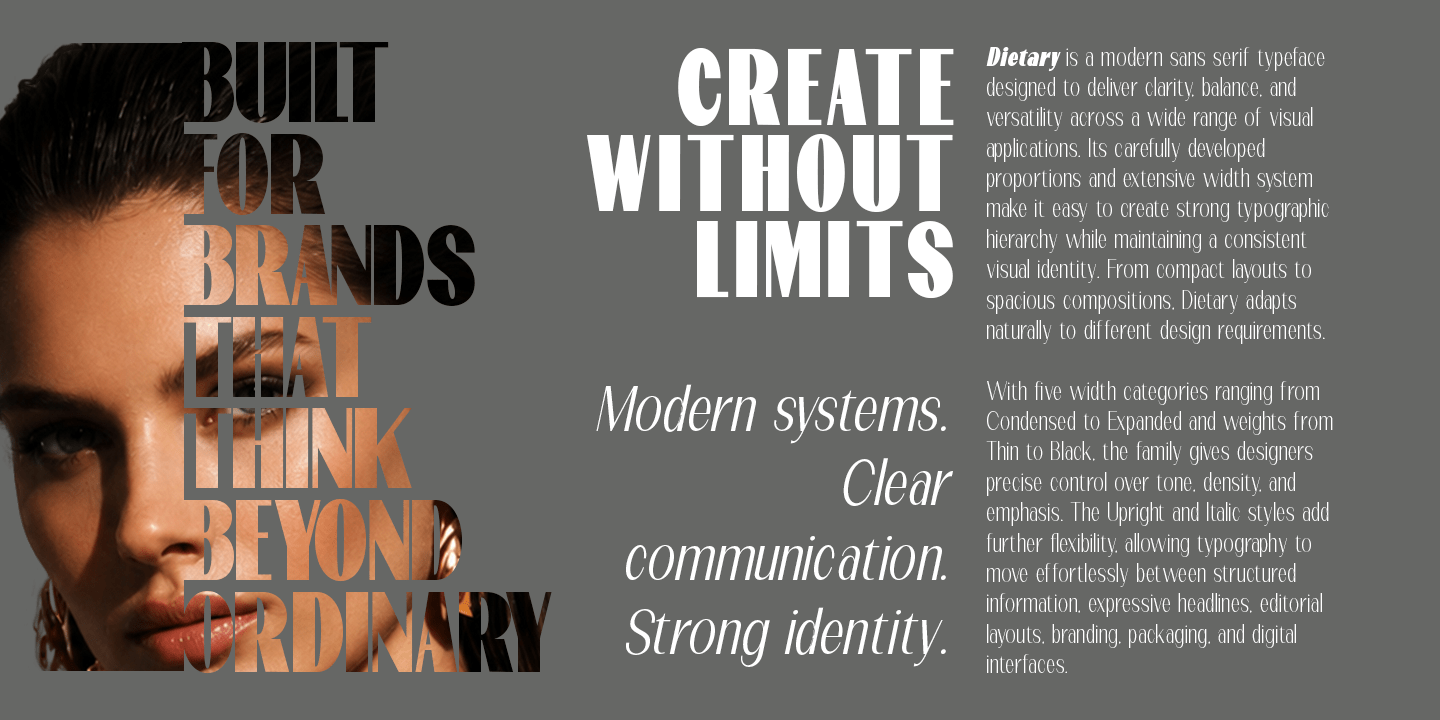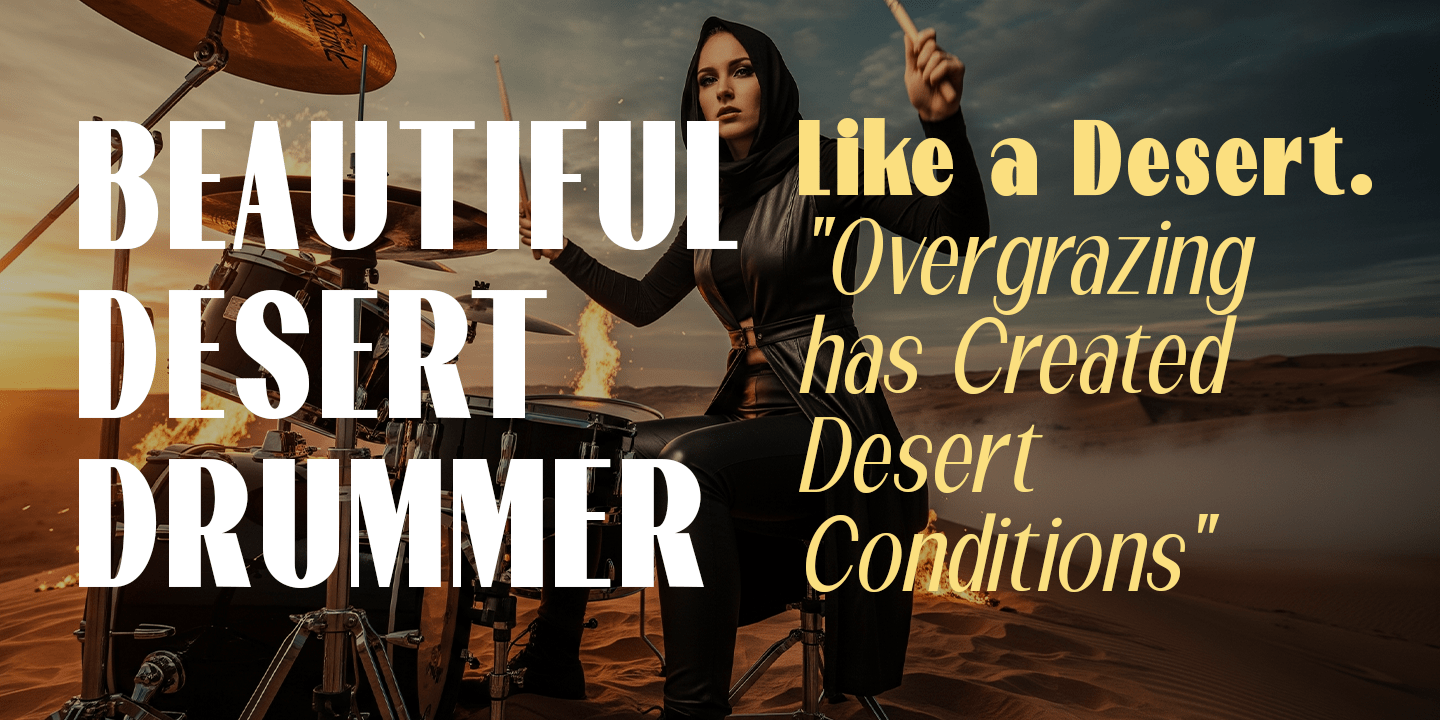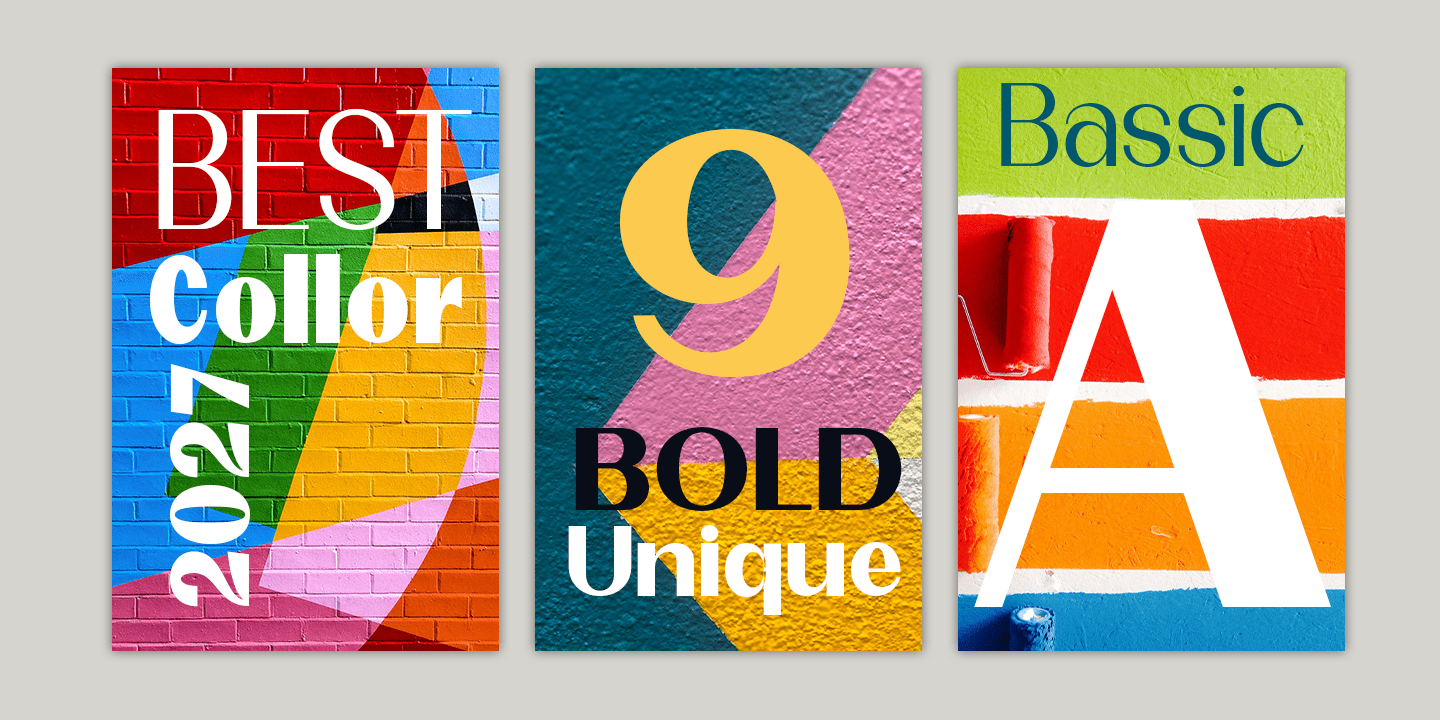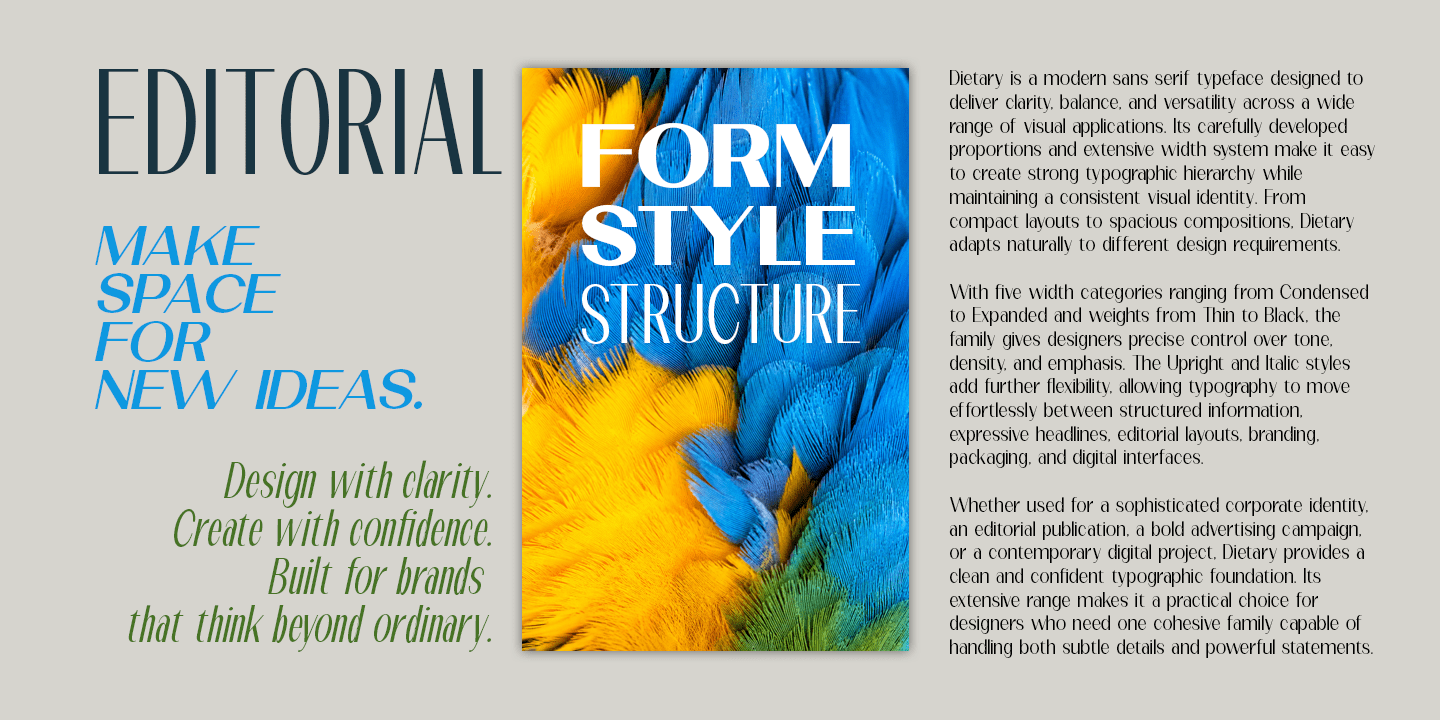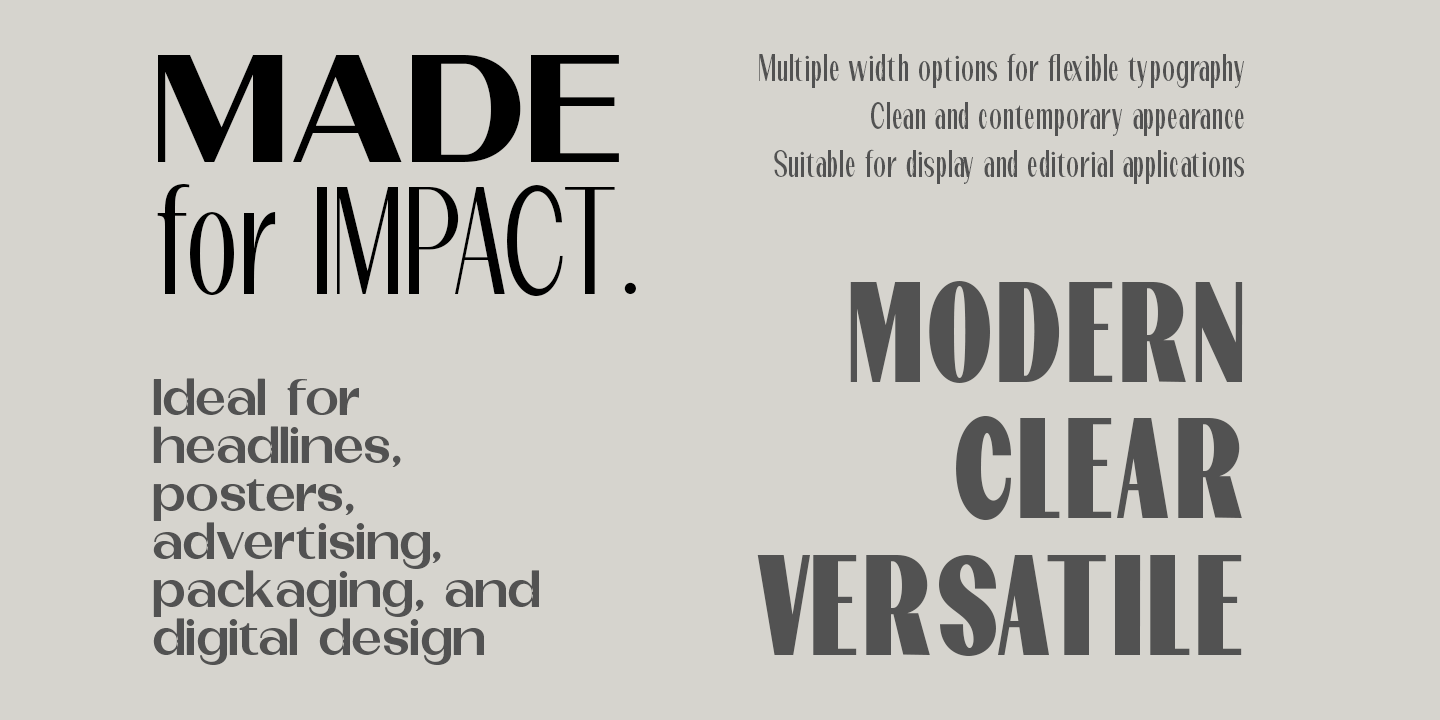
Dietary
Dietary — Sans Serif Font Family
Dietary is a versatile modern sans serif typeface family designed to bring clarity, structure, and contemporary character to a wide range of creative and professional projects. With 100 fonts, Dietary offers an extensive range of widths and weights, giving designers the flexibility to create everything from compact headlines to expressive editorial layouts and polished branding systems.
The family is organized into five width categories: Condensed, Semi Condensed, Normal, Semi Expanded, and Expanded. Each category ranges from Thin to Black, with both Upright and Italic styles for a total of 100 fonts.
Its clean construction, balanced proportions, and extensive width system make Dietary suitable for branding, editorial design, posters, advertising, packaging, websites, UI/UX, corporate identities, magazines, headlines, and display typography.
Family Structure
- Condensed — Thin to Black
- Semi Condensed — Thin to Black
- Normal — Thin to Black
- Semi Expanded — Thin to Black
- Expanded — Thin to Black
- 50 Upright Styles
- 50 Italic Styles
- 100 Fonts Total
Key Features
- Modern Sans Serif
- 5 Width Categories
- Thin to Black
- Upright & Italic
- 100 Fonts Total
- Multiple width options for flexible typography
- Clean and contemporary appearance
- Suitable for display and editorial applications
- Excellent for branding and identity systems
- Ideal for headlines, posters, advertising, packaging, and digital design